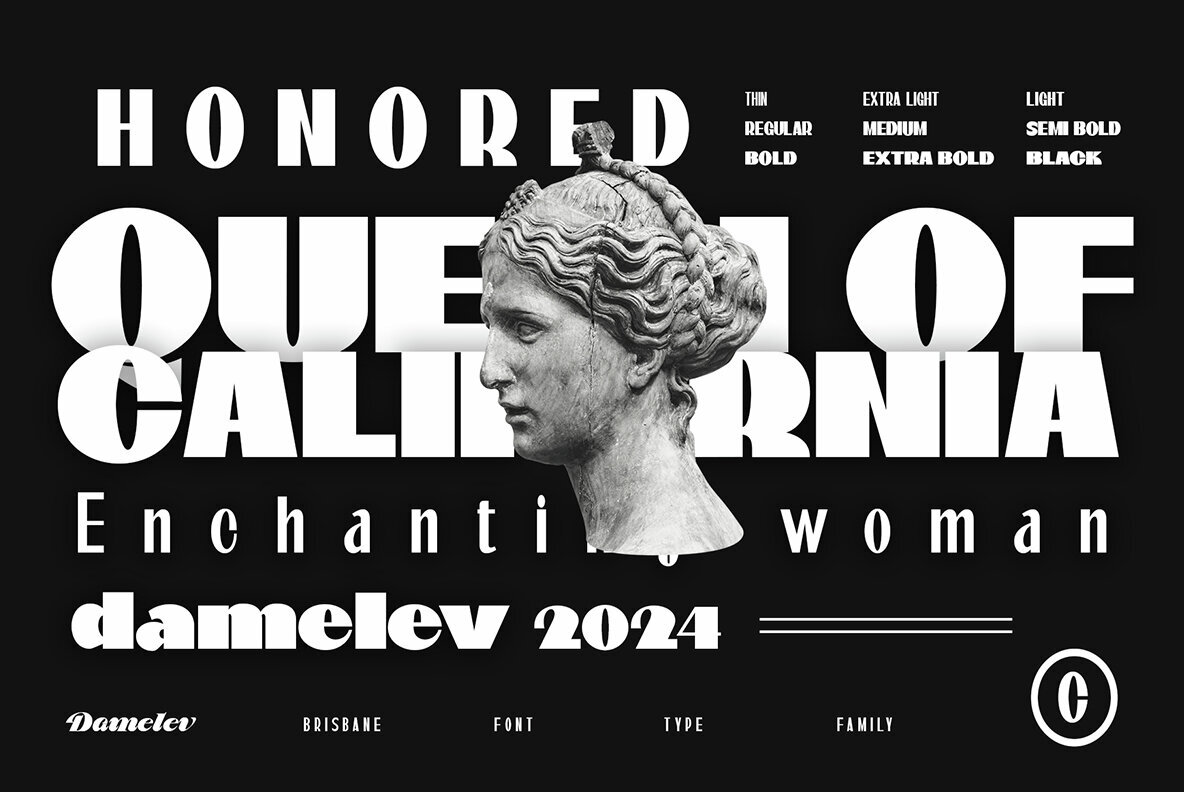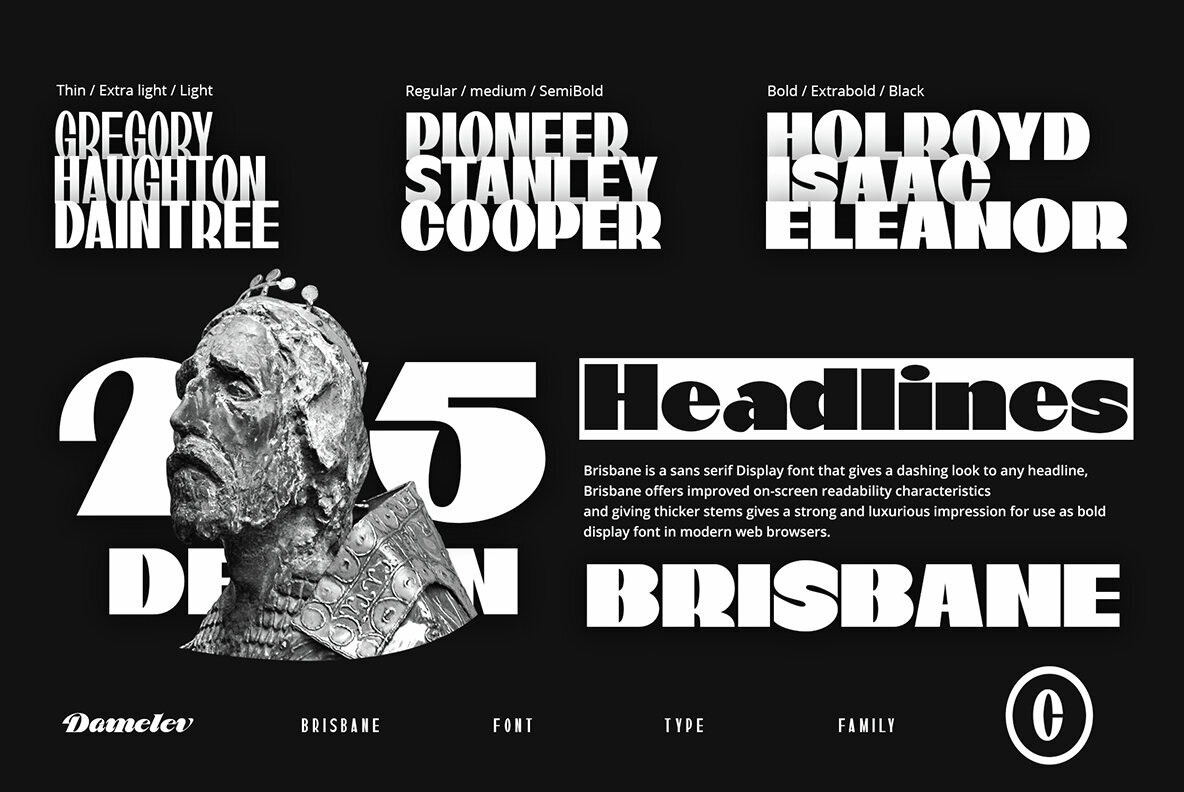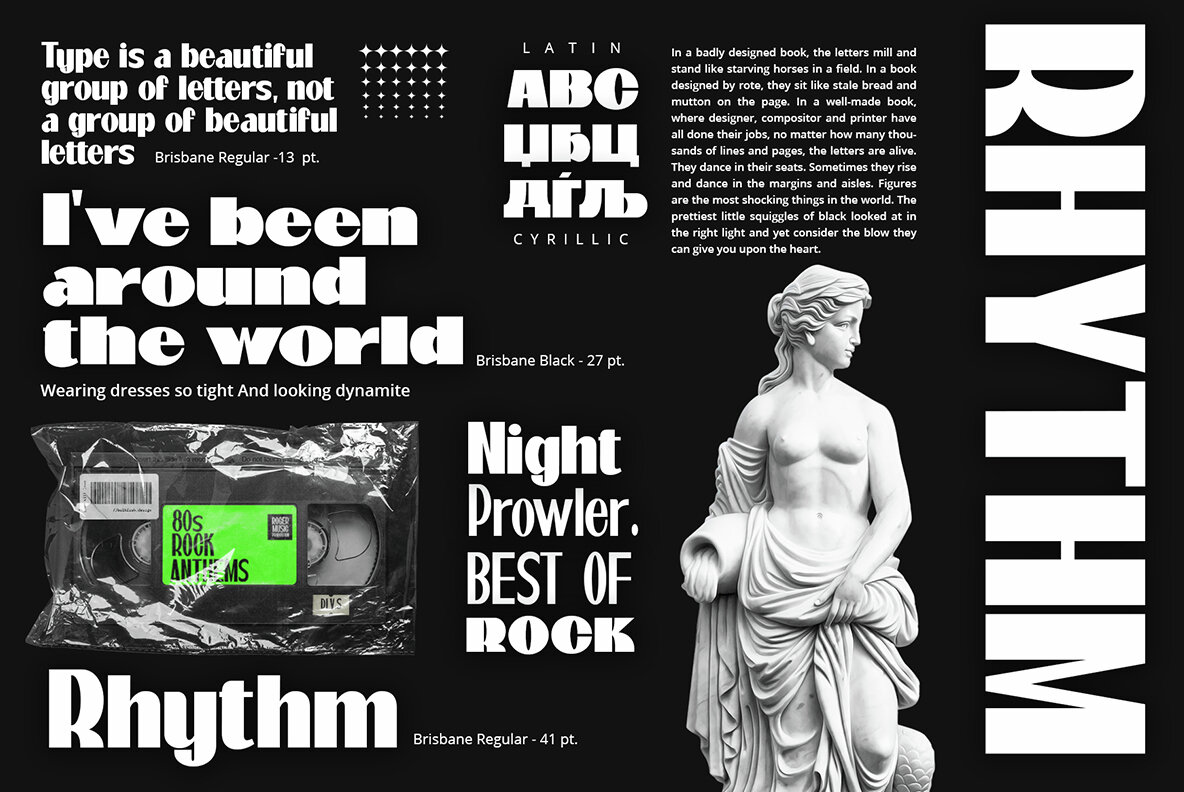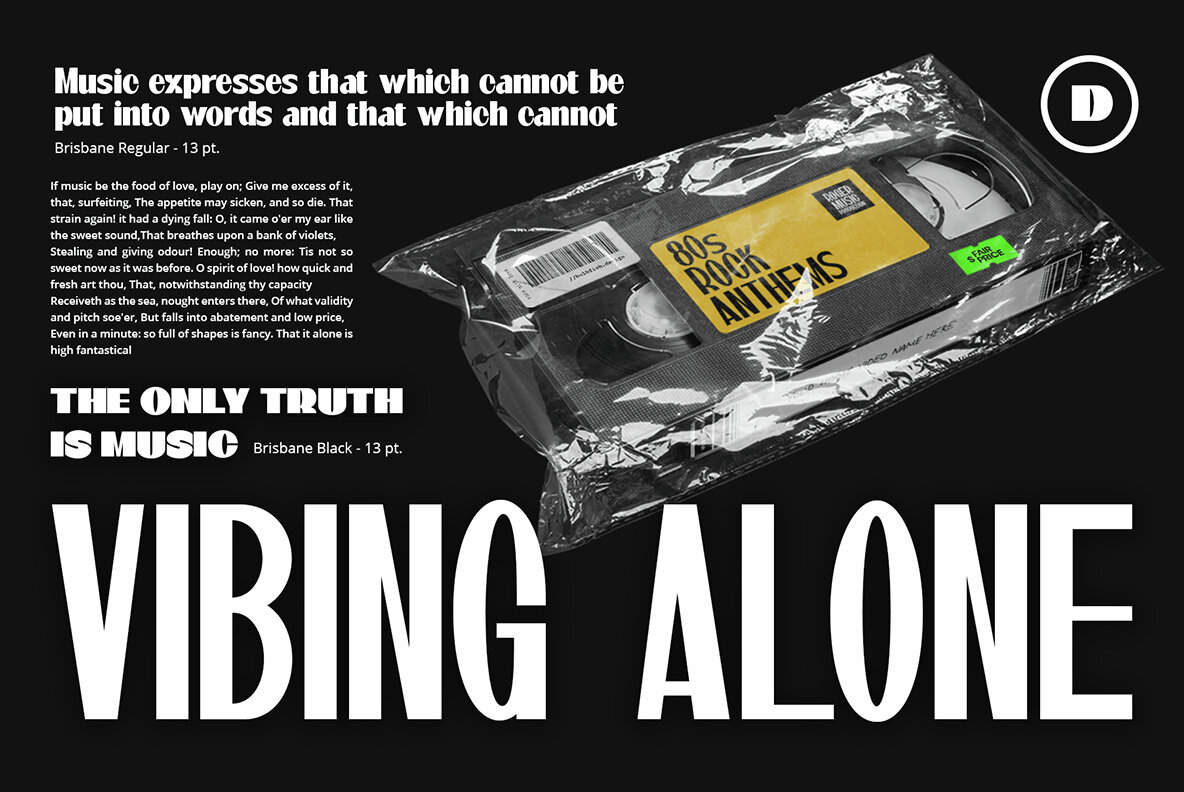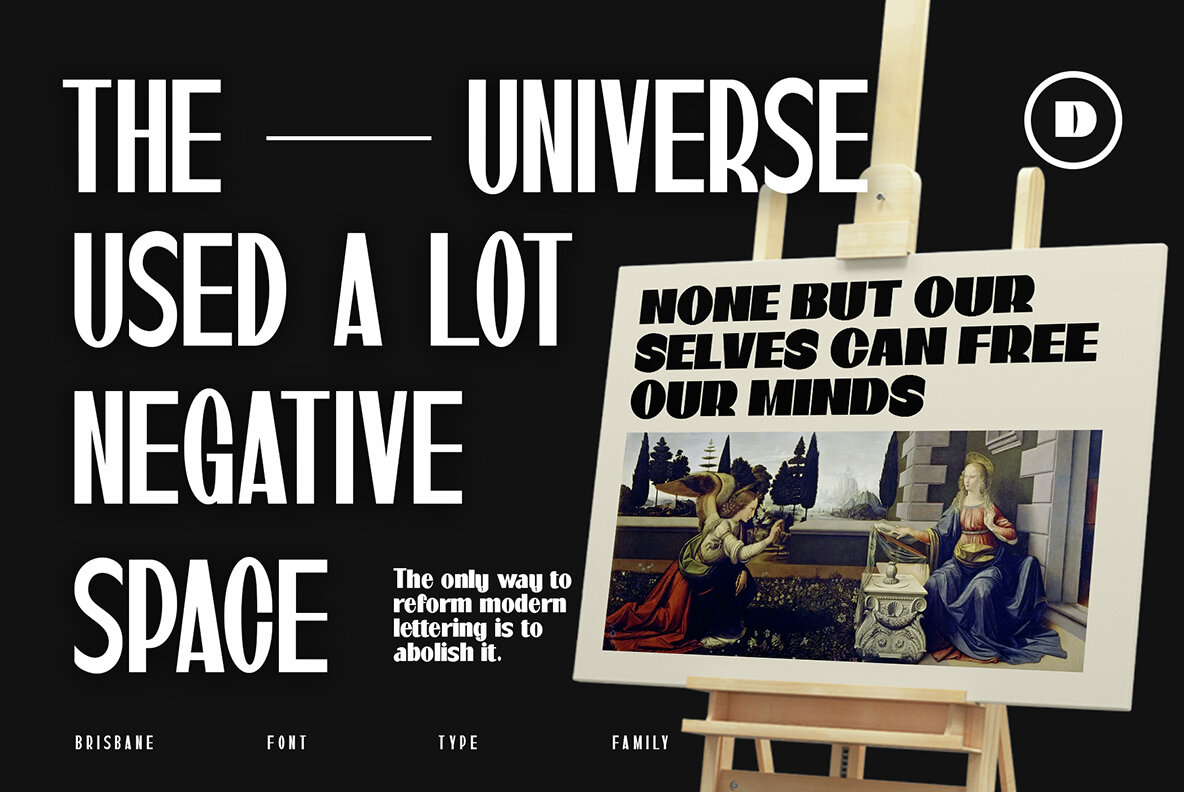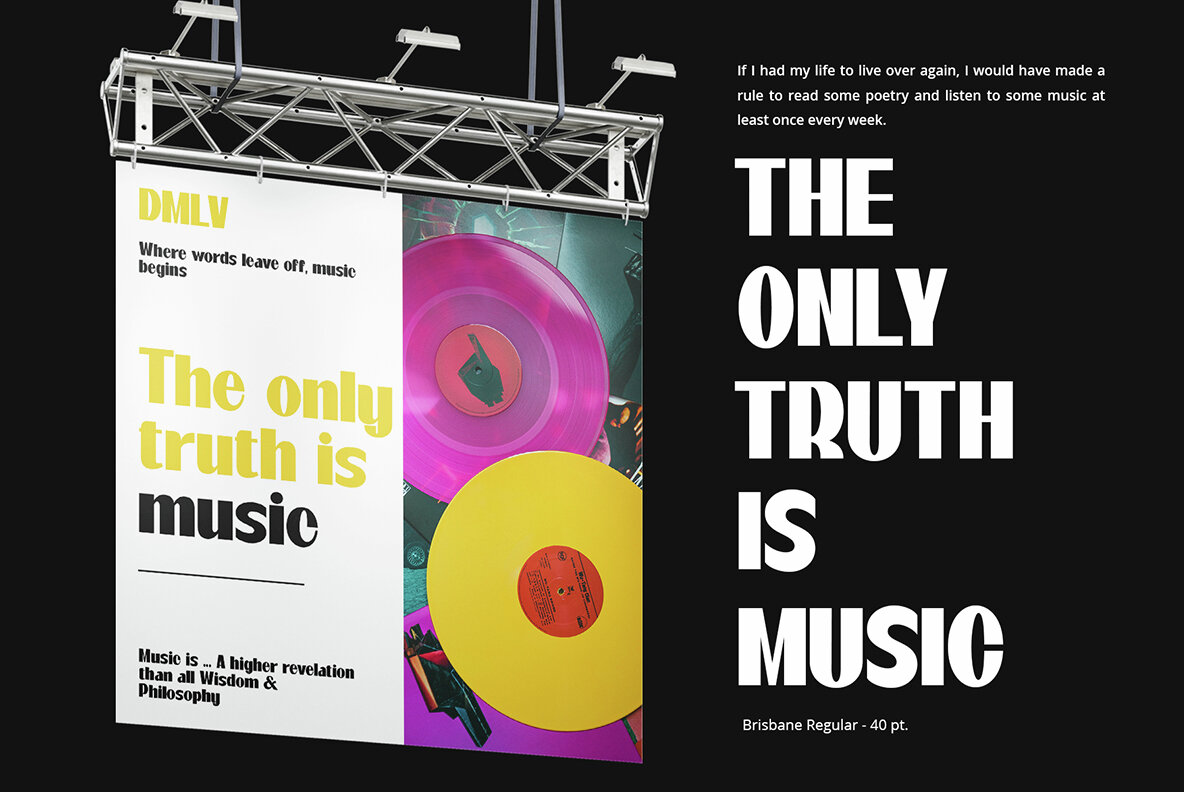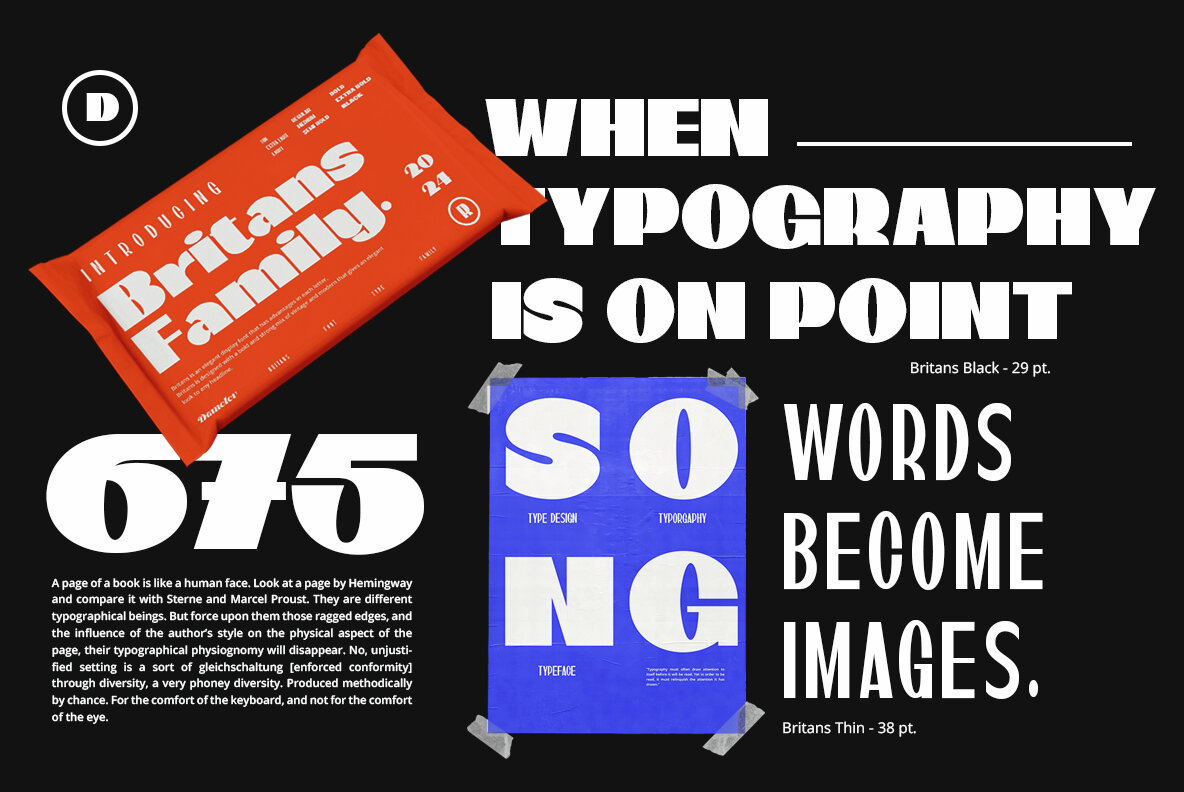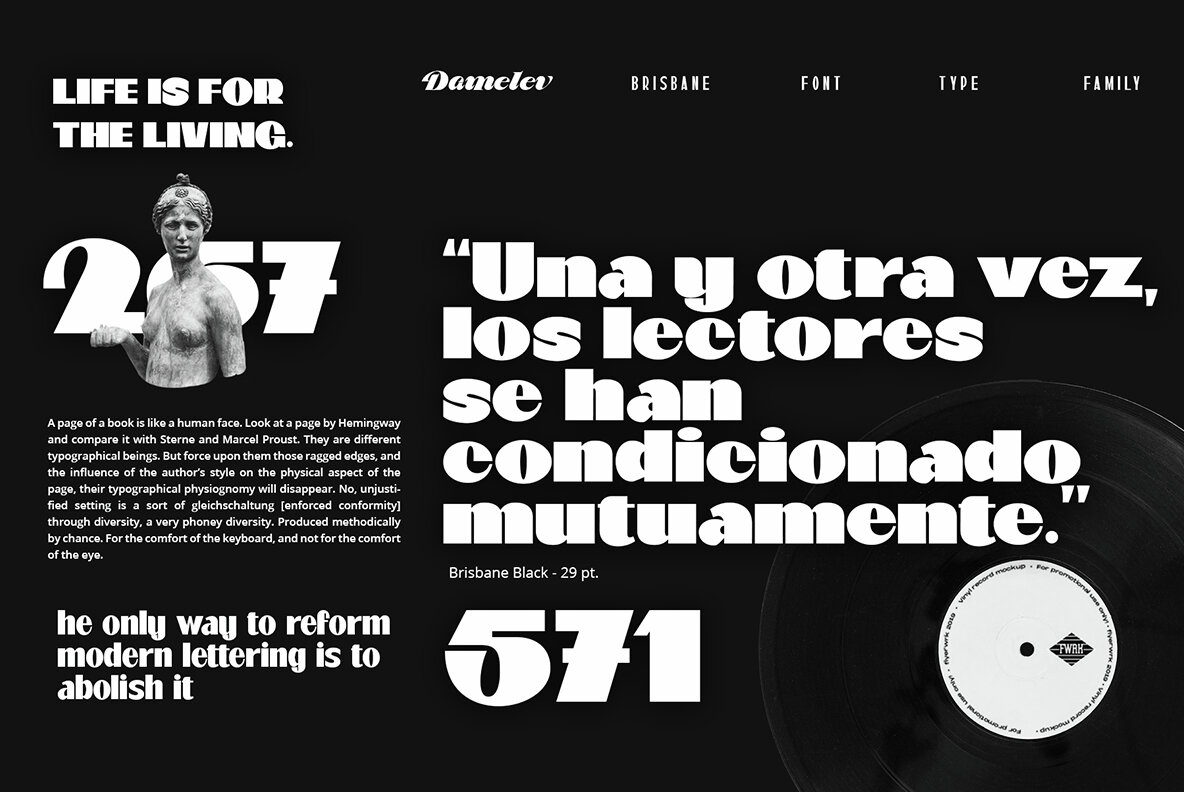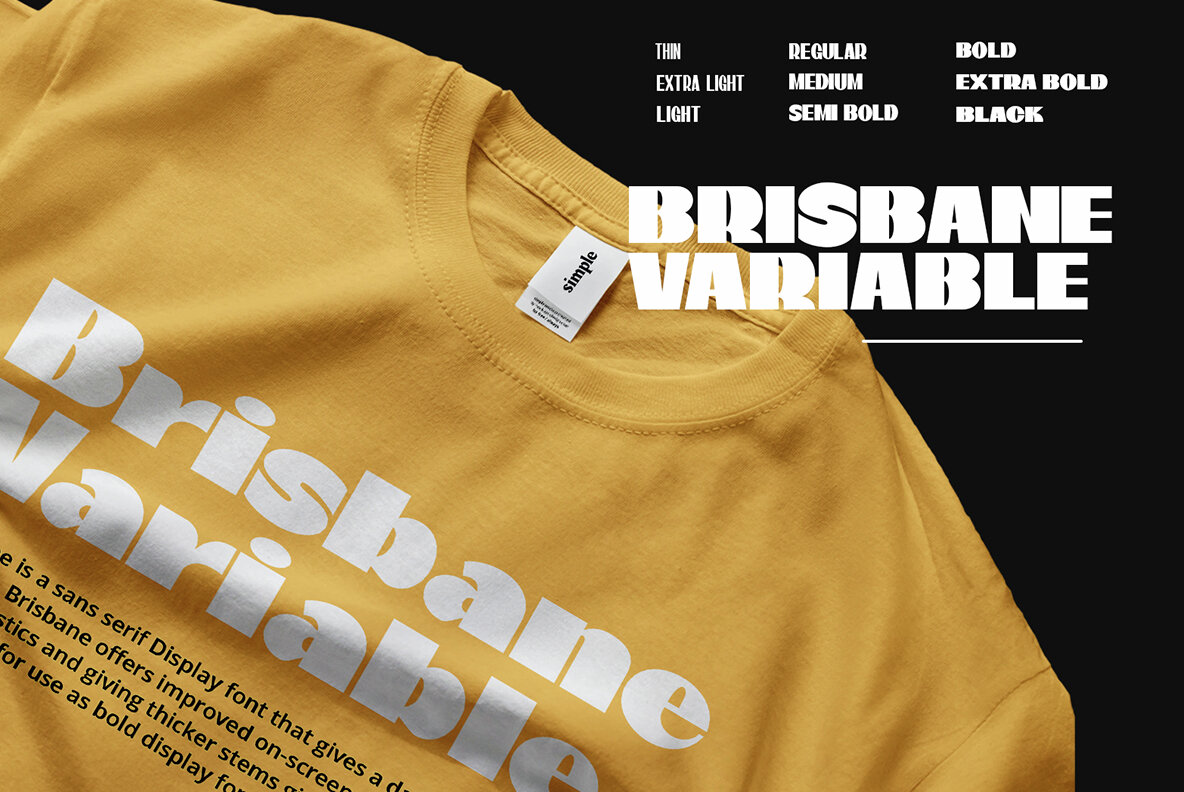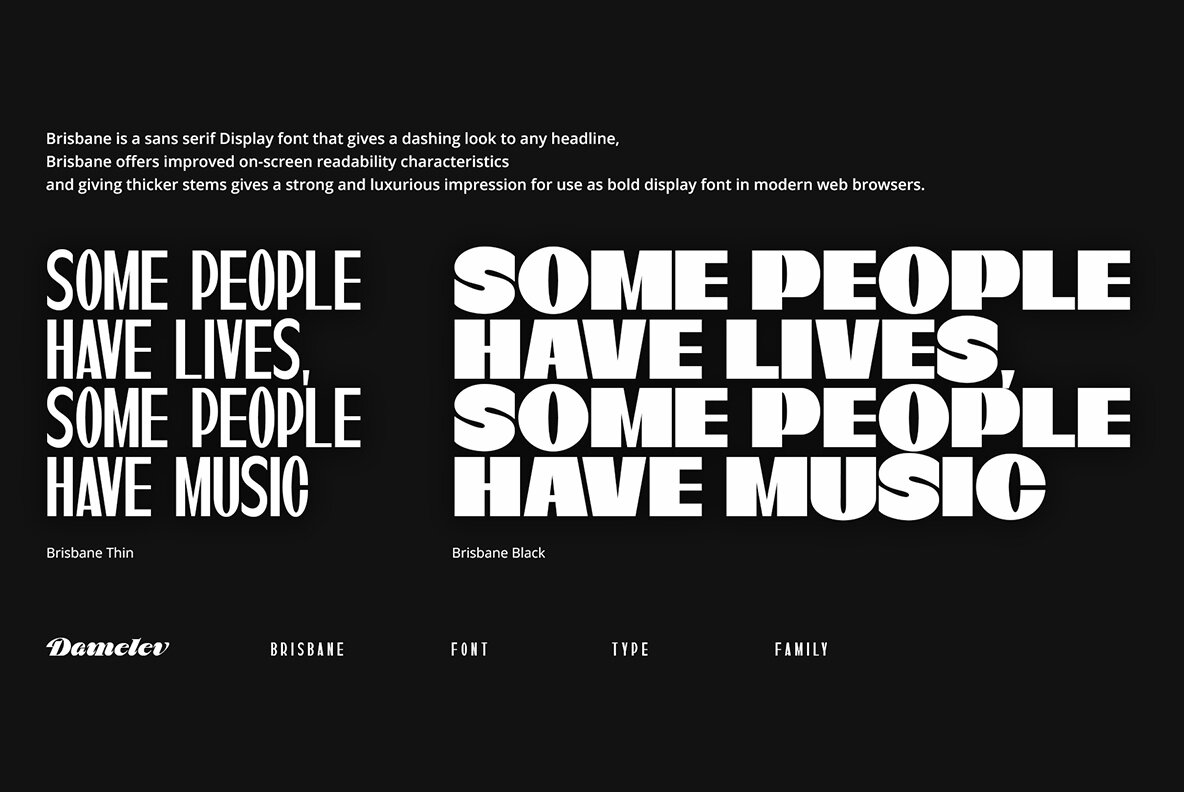
Britans Font
Britans is a sans serif display font designed for modern aesthetics and strong visual impact. With its thick stems, it ensures excellent readability on screens and delivers a bold, luxurious appearance perfect for headlines. This versatile font includes eighteen weights ranging from Thin to Black, providing a wide array of options for any project.
Ideal for creative endeavors, Britans shines in logos, apparel design, badges, invitations, packaging, posters, magazines, greeting cards, and wedding invitations. Its support for multilingual characters allows for global usability. Additionally, Britans is fully compatible with OpenType features, accessible in popular Adobe programs such as InDesign, Illustrator, and Photoshop.